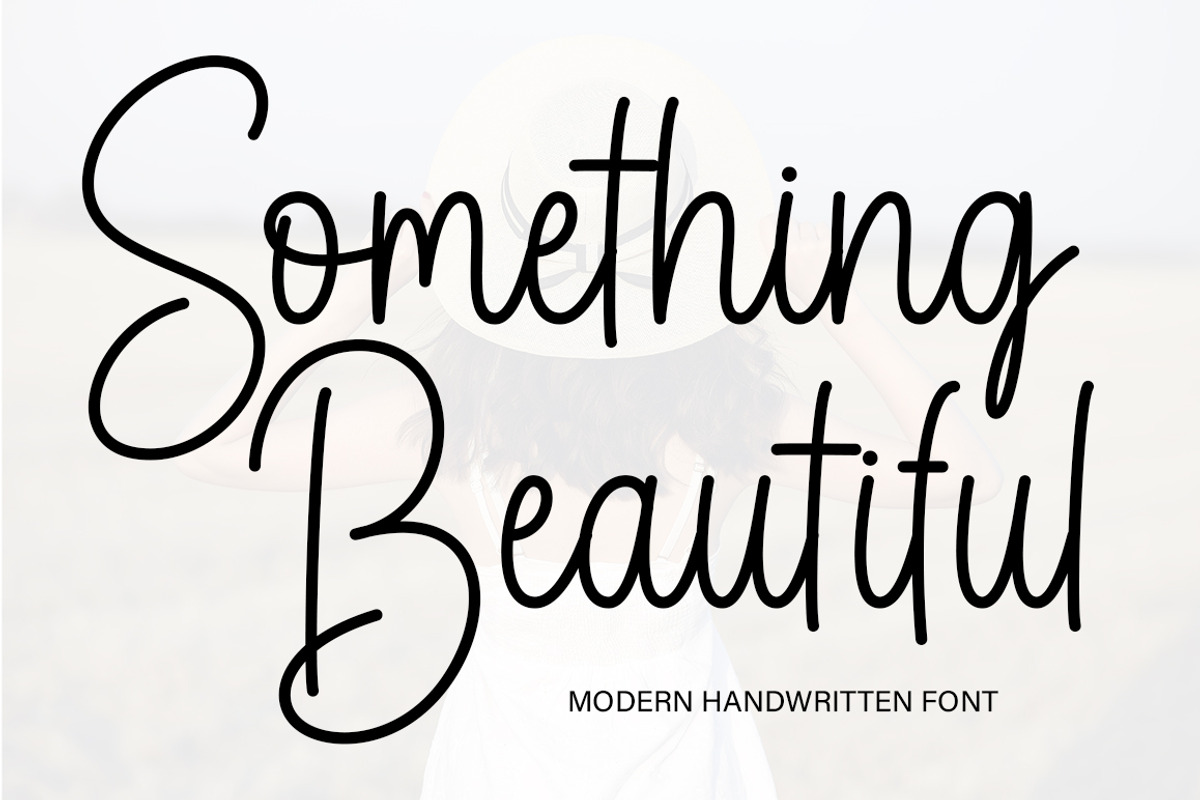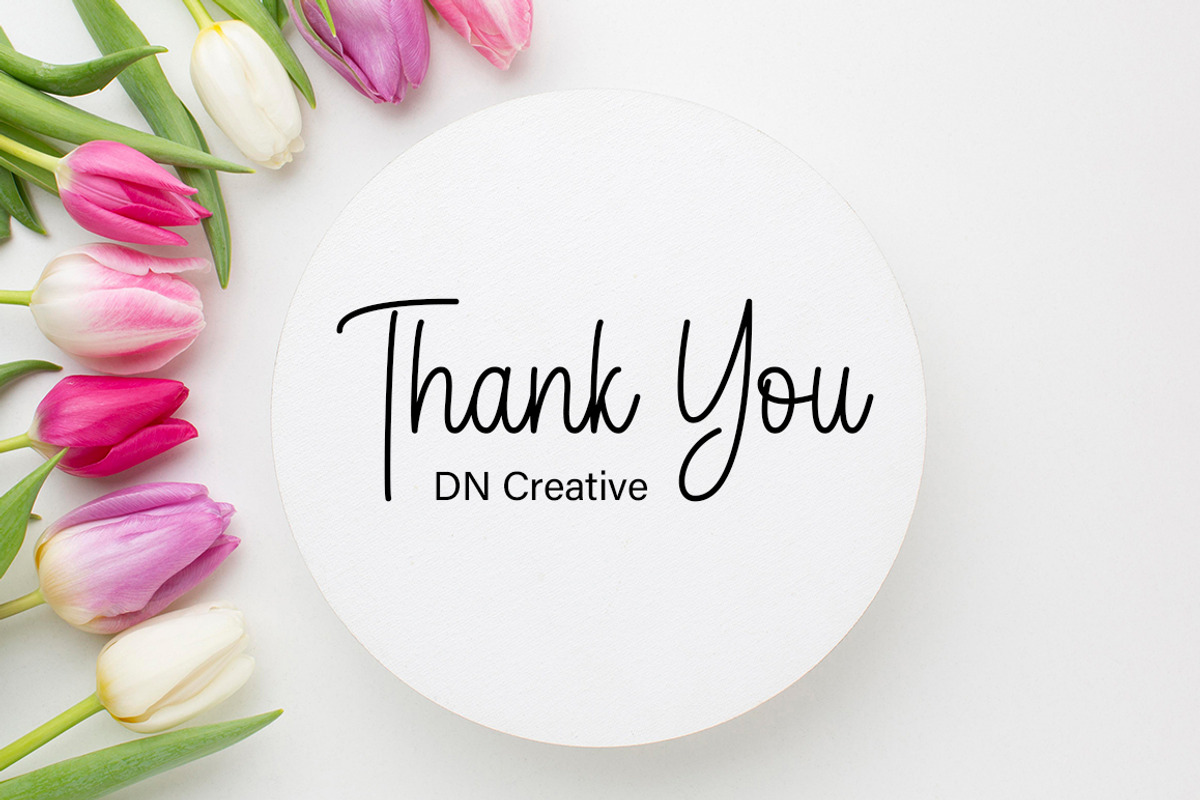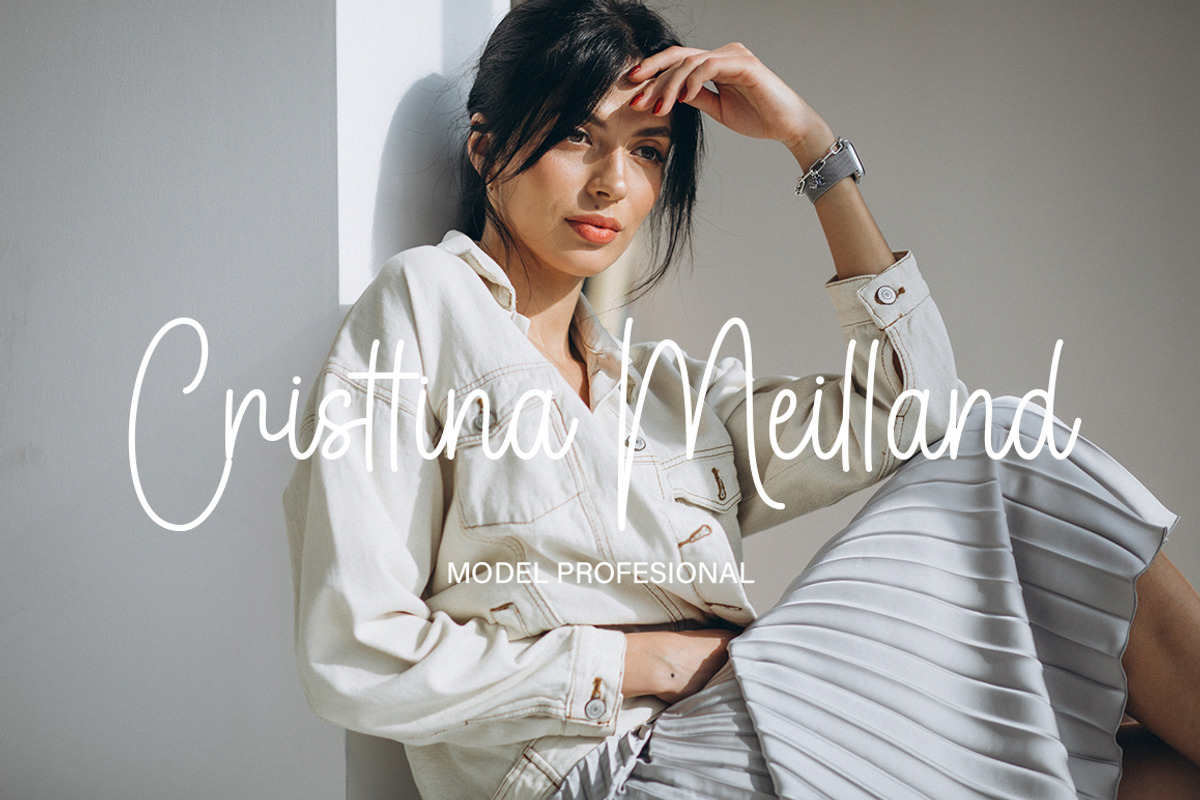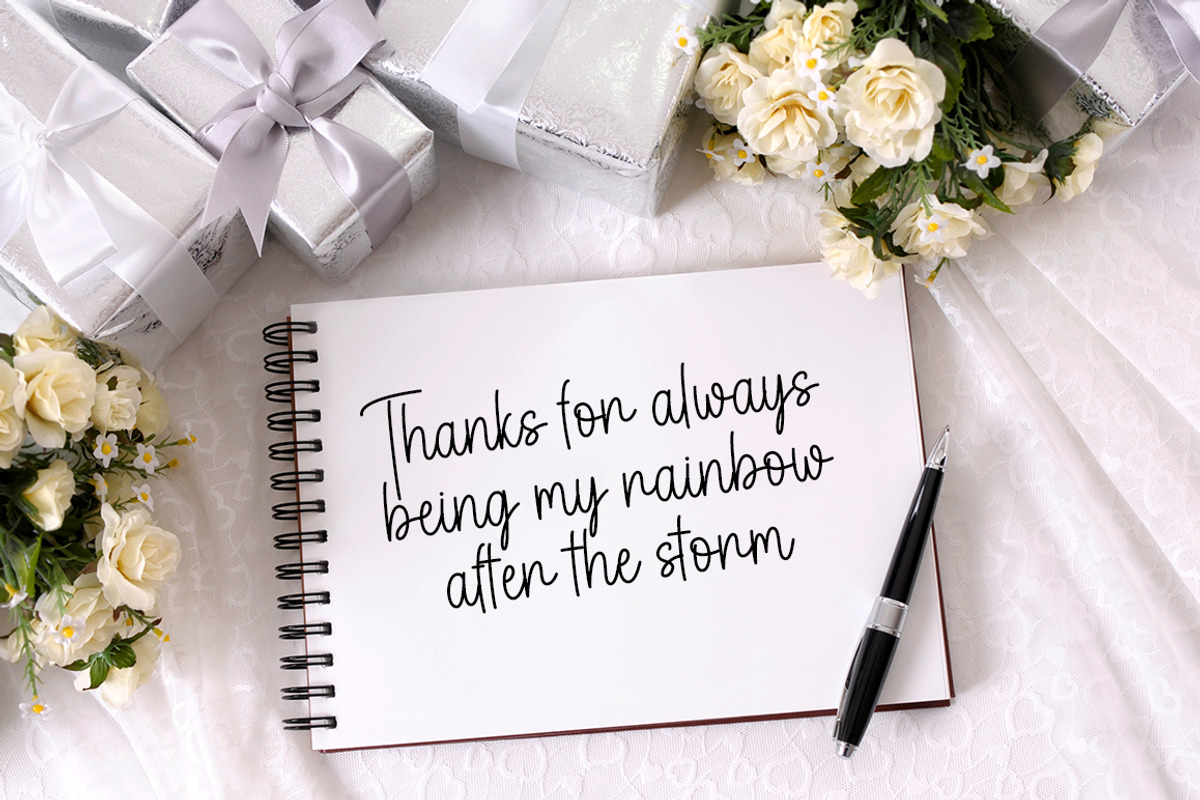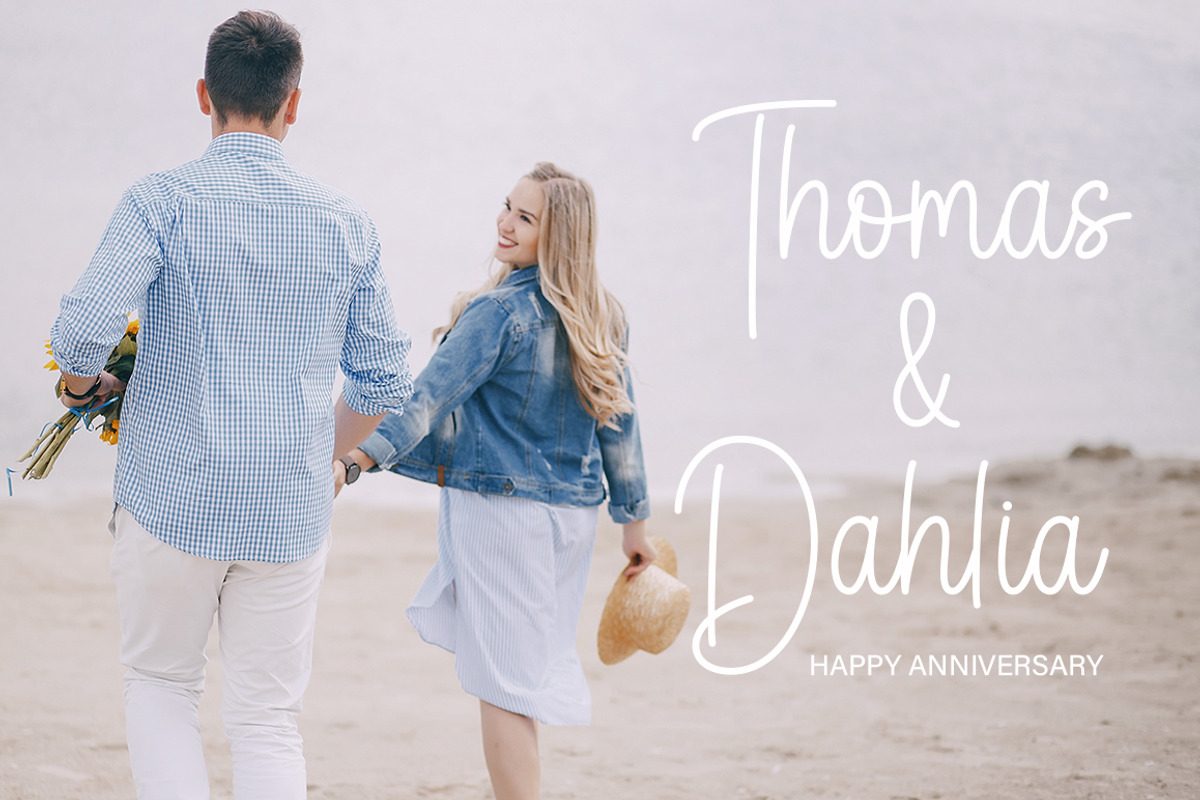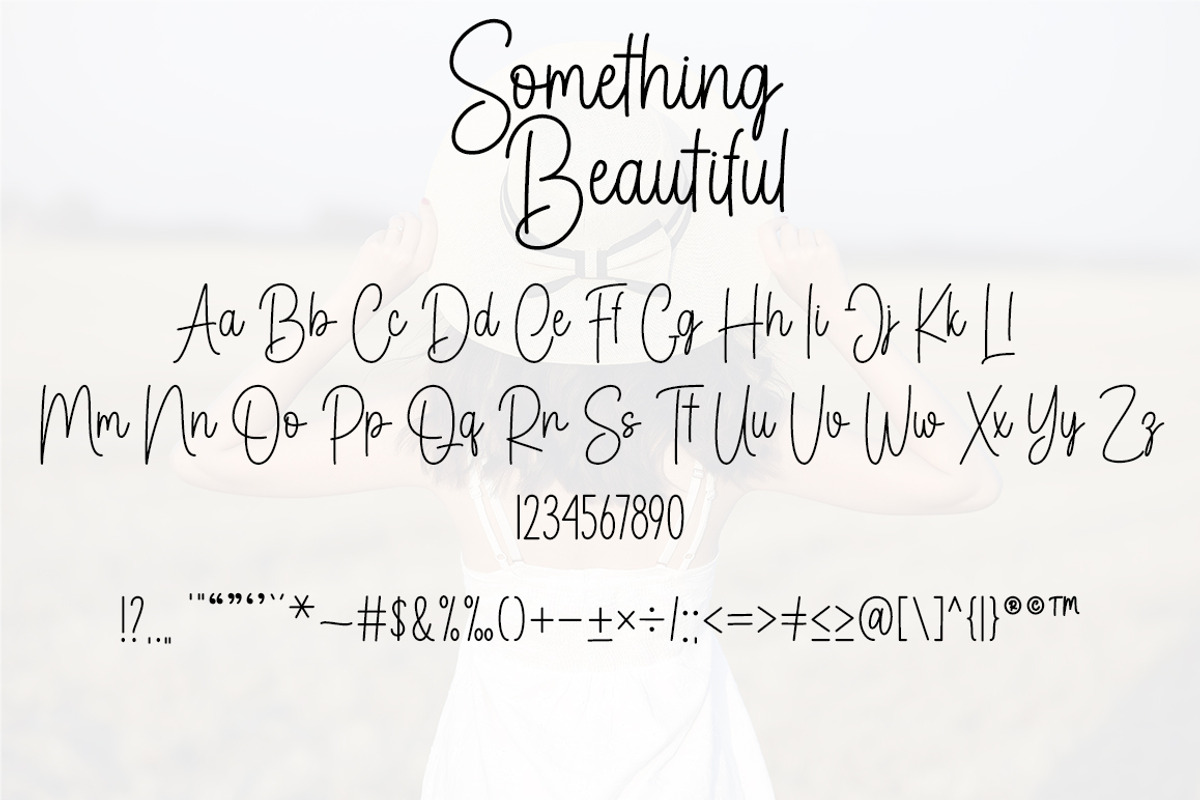
Something Beautiful
Something Beautiful is a lovely and timeless handwritten font. It is the best choice for creating eye catching logos, branding and quotes. Every letter has a unique and beautiful touch, which will make your design come alive!This font is PUA coded which means you can access all the amazing glyphs and ligatures easily!